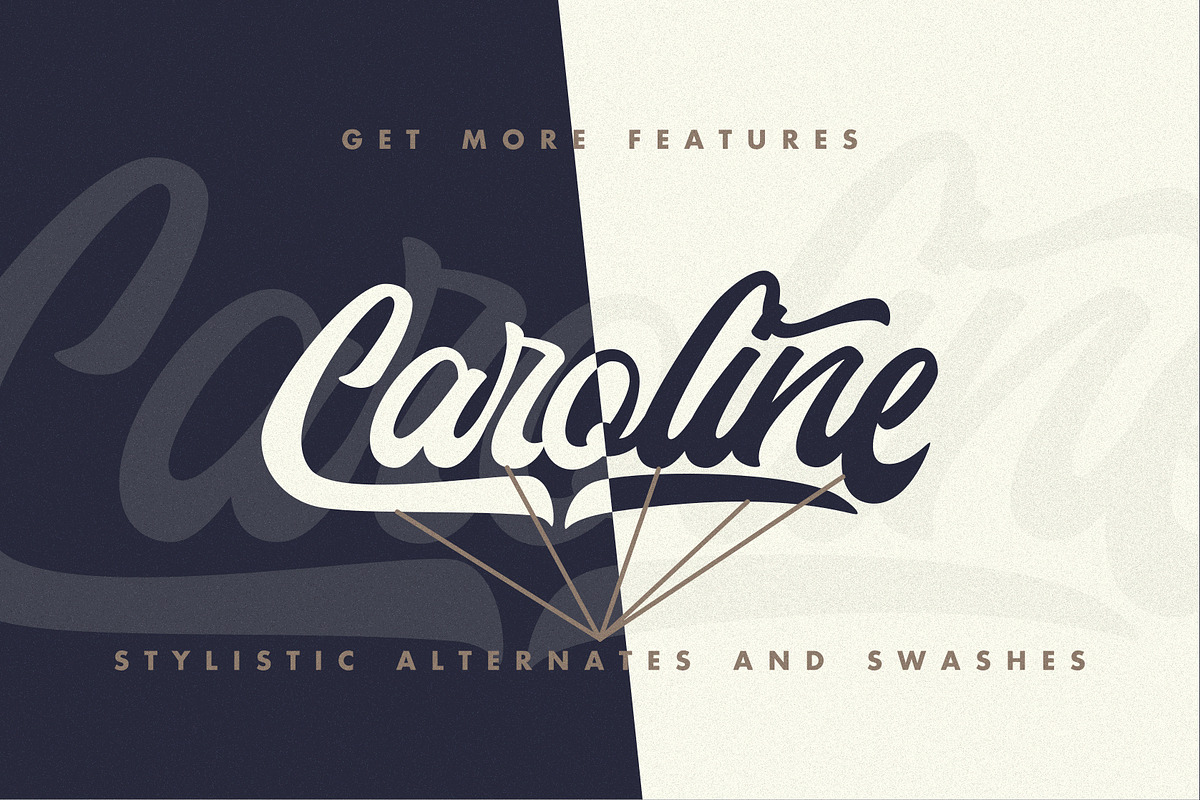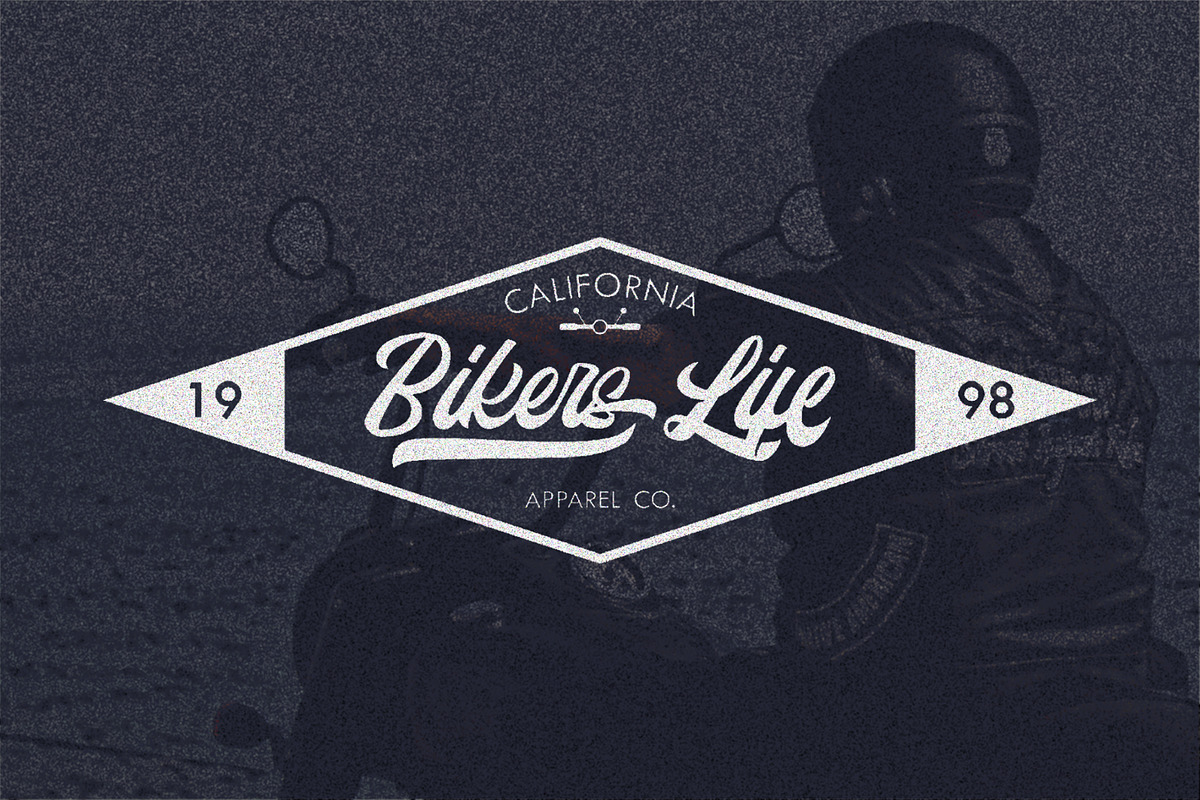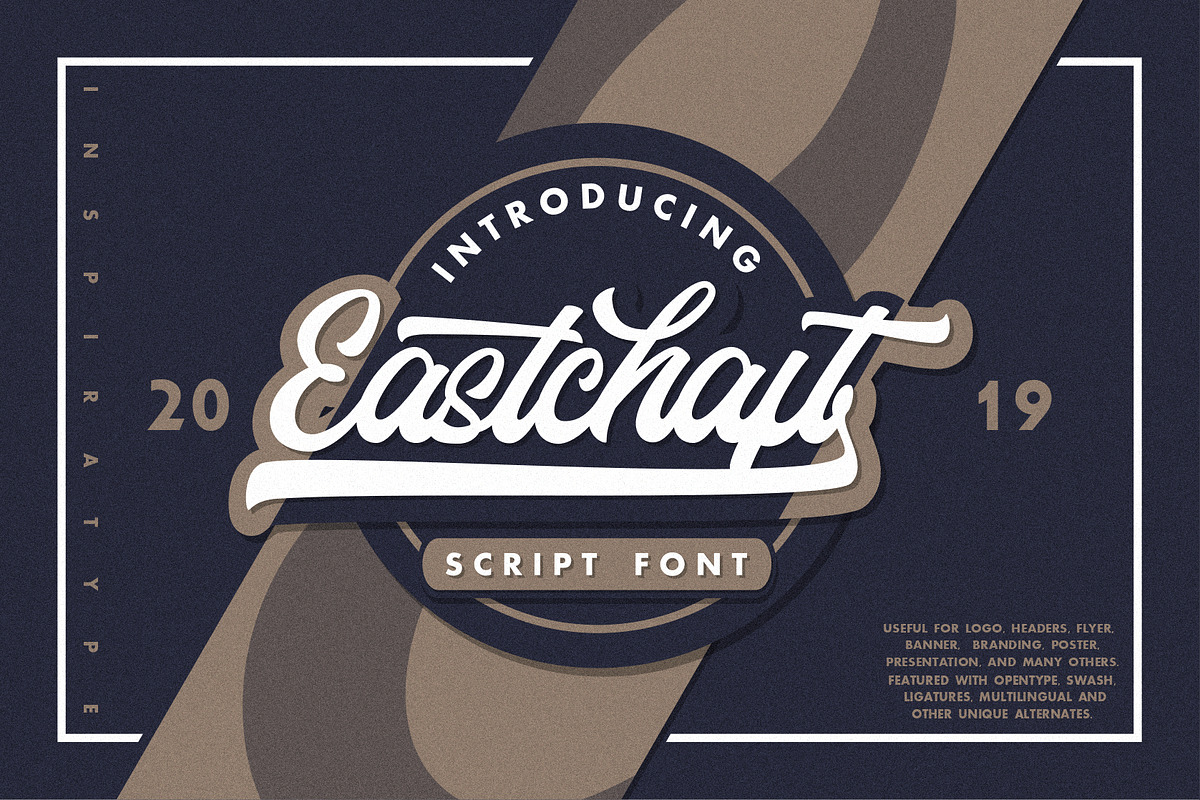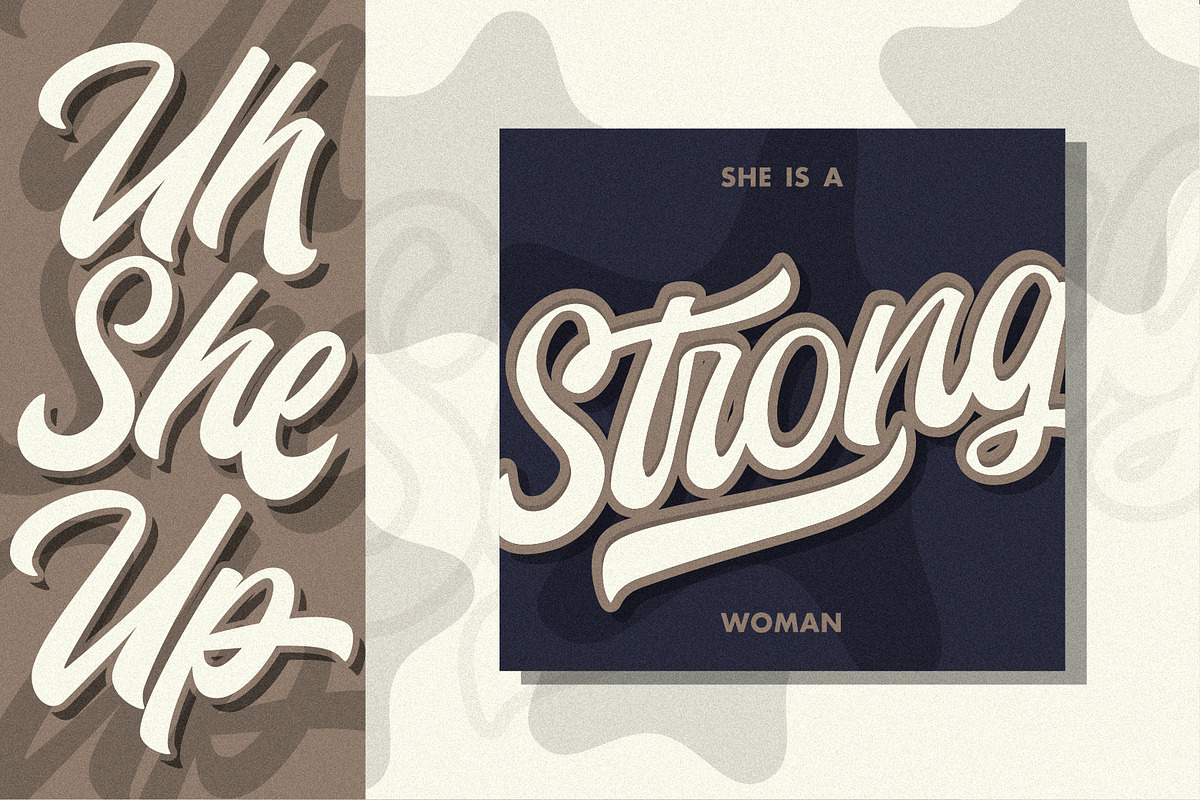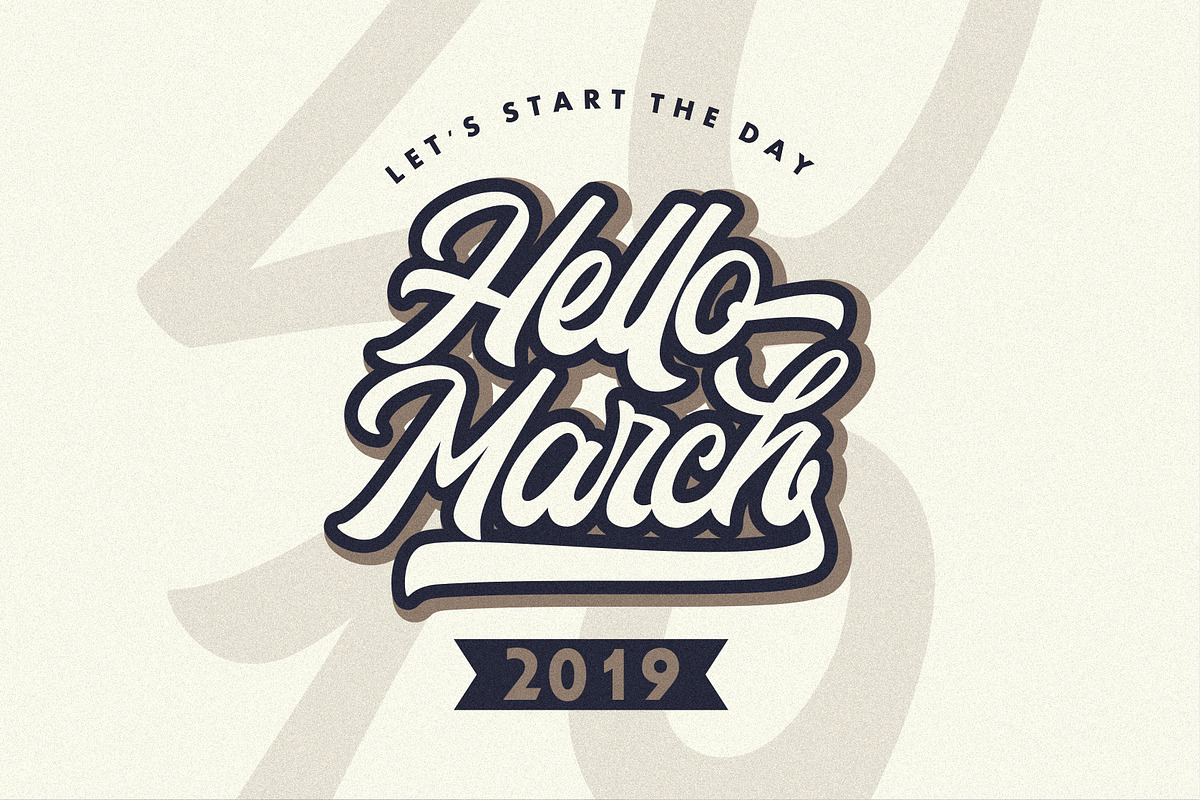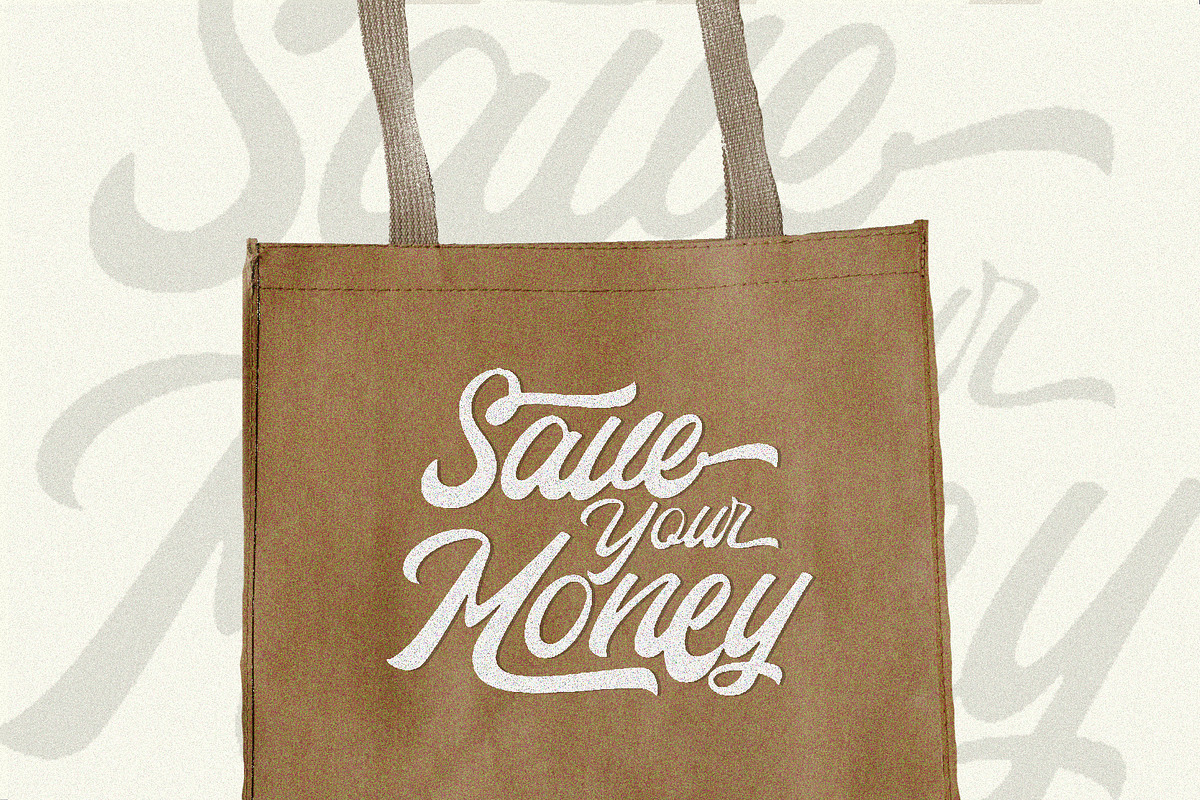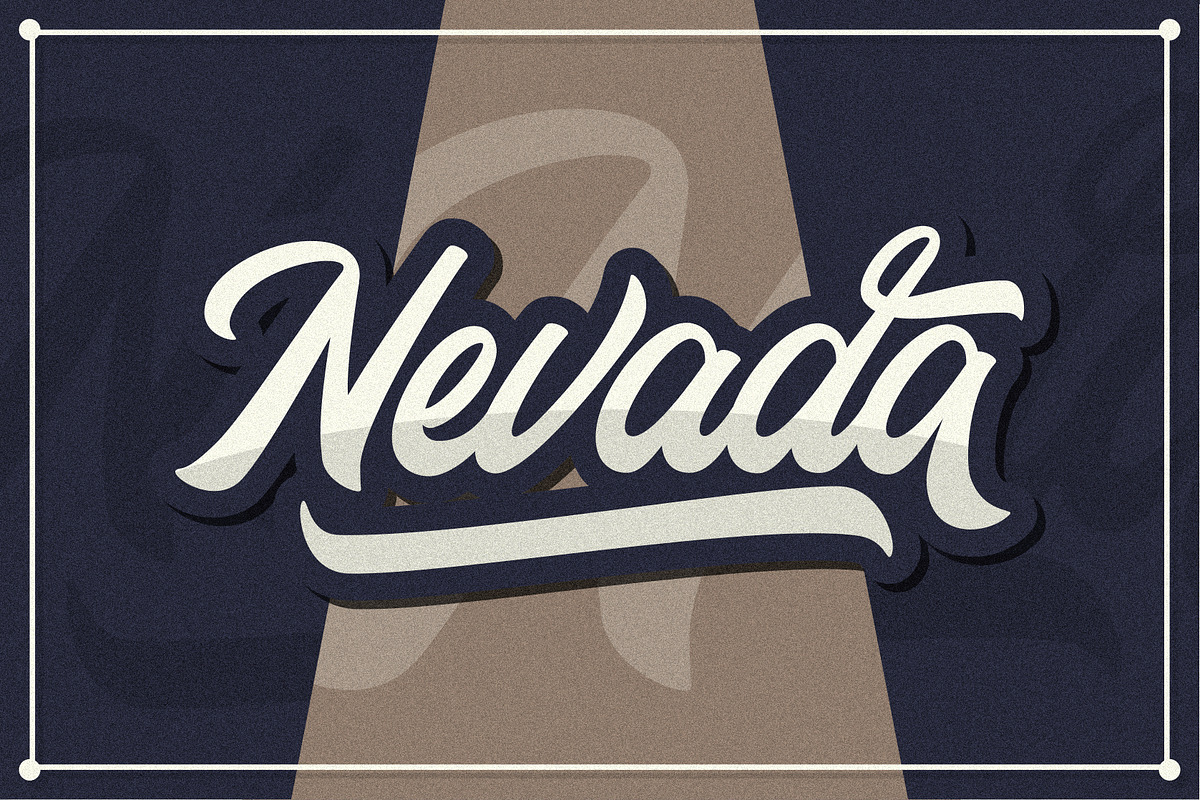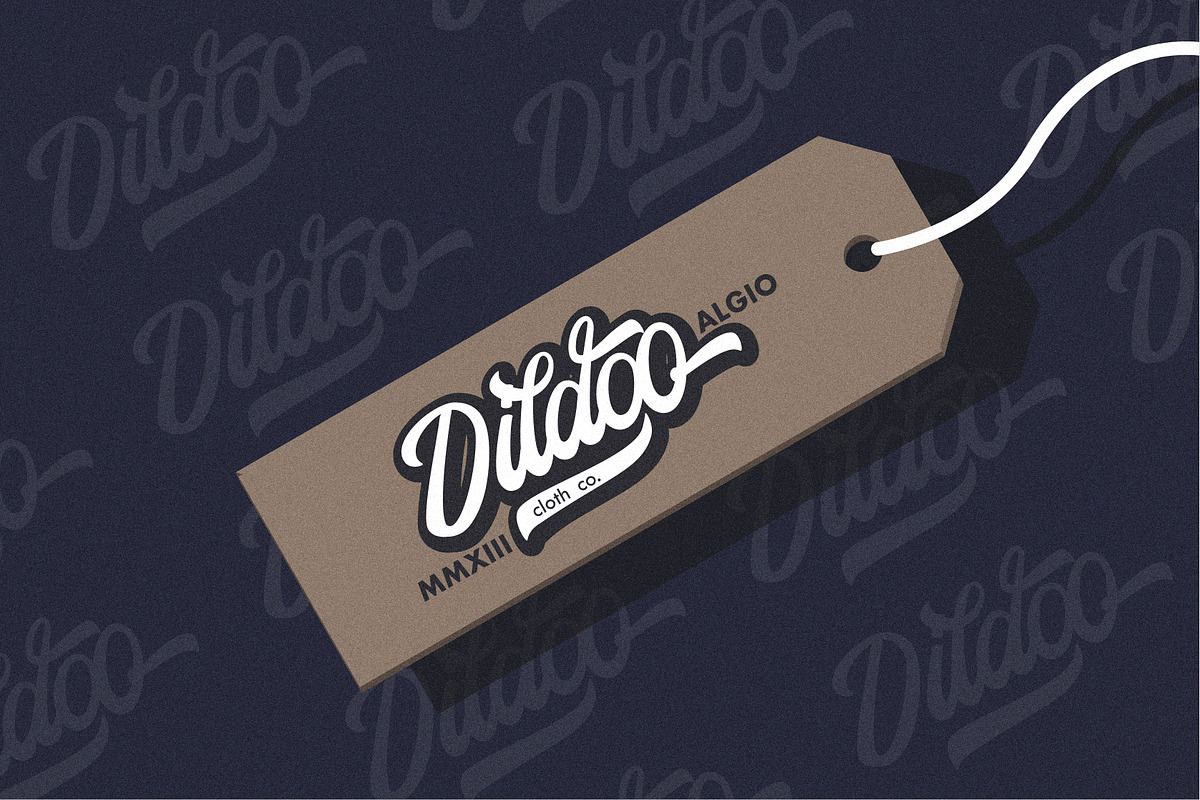
Eastchaft - Script Font
"Eastchaft" is a font display that is made by hand, inspired by classic posters.
comes with uppercase, lowercase, numerals, punctuations and so many variations on each character include OpenType alternates, common ligatures and also additional swash to let you customize your designs. Perfect to use for Logotype, Letterhead, Poster, Apparel Design, Label and etc.